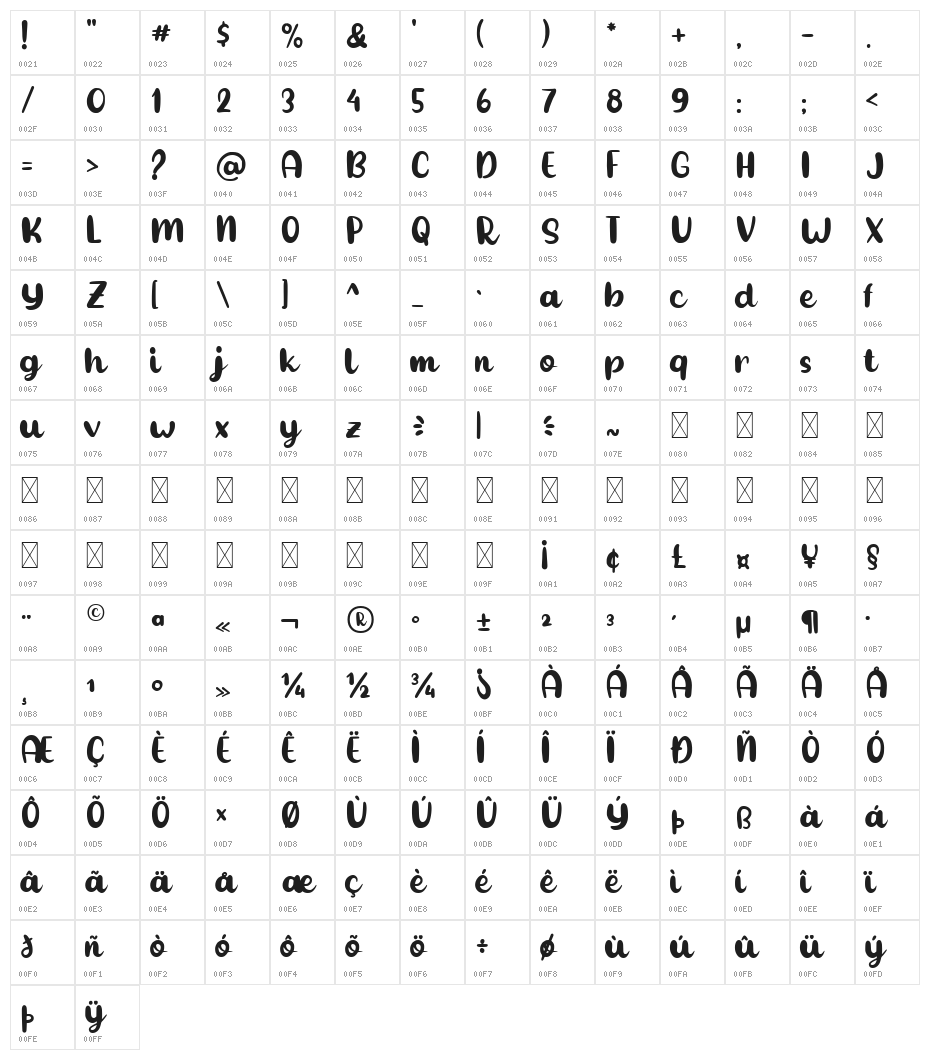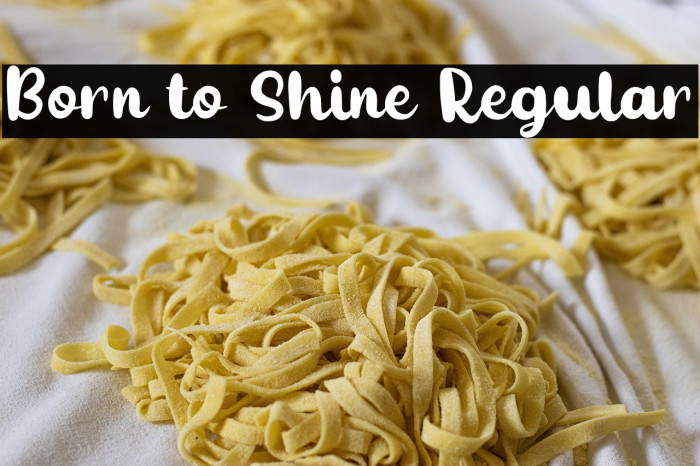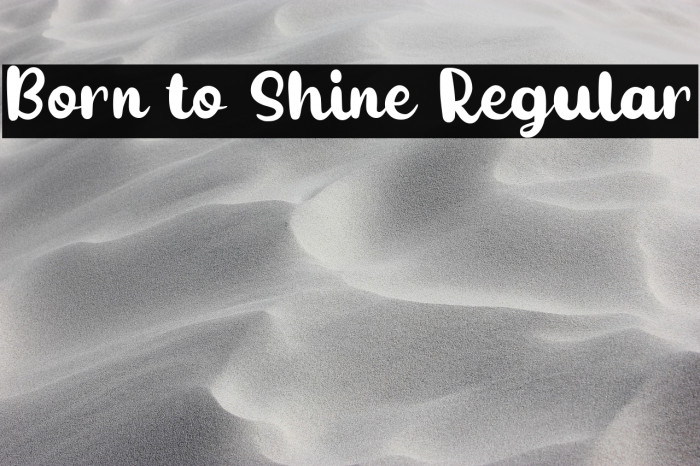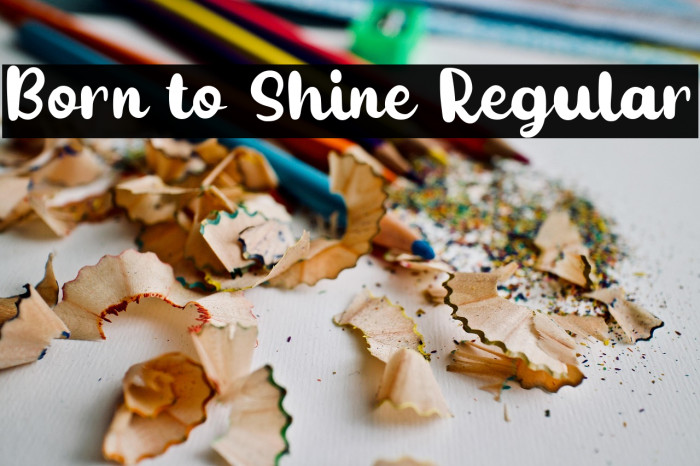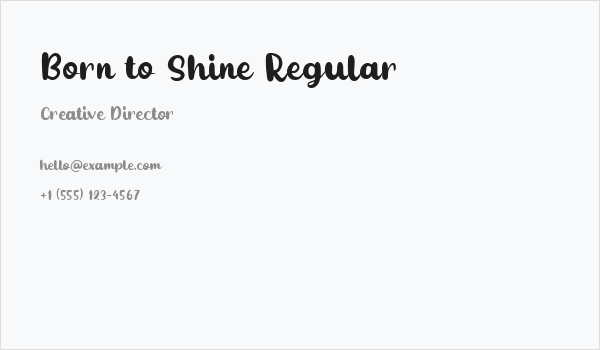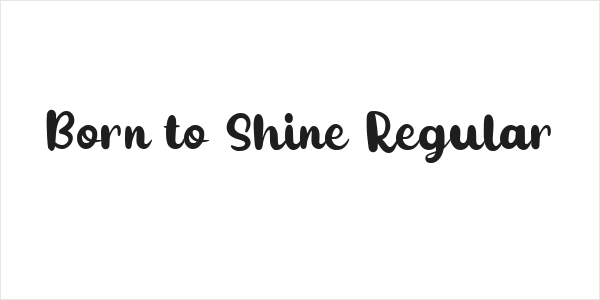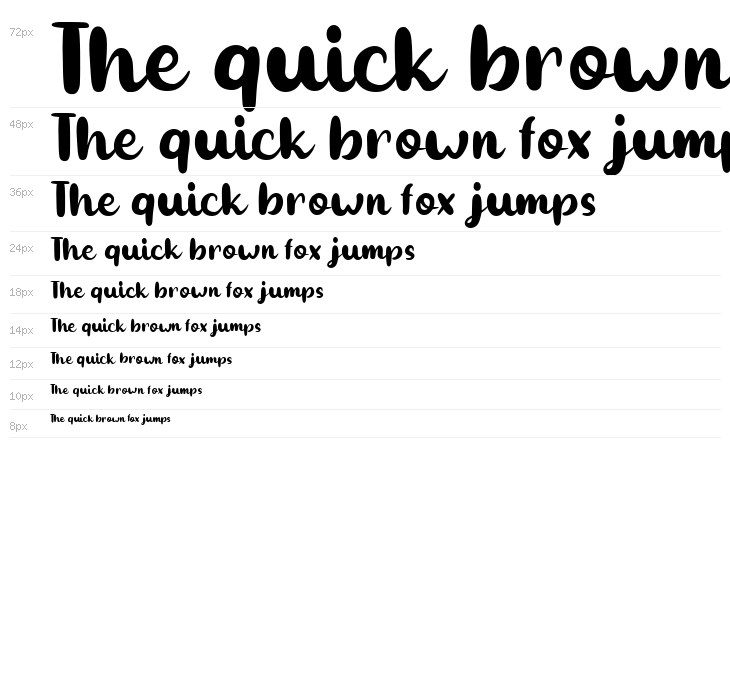
Born to Shine Regular Font
Born to Shine Regular Description
This playful and bold font features a handwritten style with smooth, rounded edges and a lively, bouncy baseline. The characters are thick and well-defined, offering a friendly and approachable appearance. The uppercase letters maintain a consistent height, while the lowercase letters exhibit a slight variation in size, adding to the font's whimsical charm. The numerals are equally bold and rounded, ensuring readability. Special characters are crafted with the same playful spirit, making this font versatile for various creative projects.
| Proposed Projects | Ideal for children's books, playful branding, greeting cards, and social media graphics. |